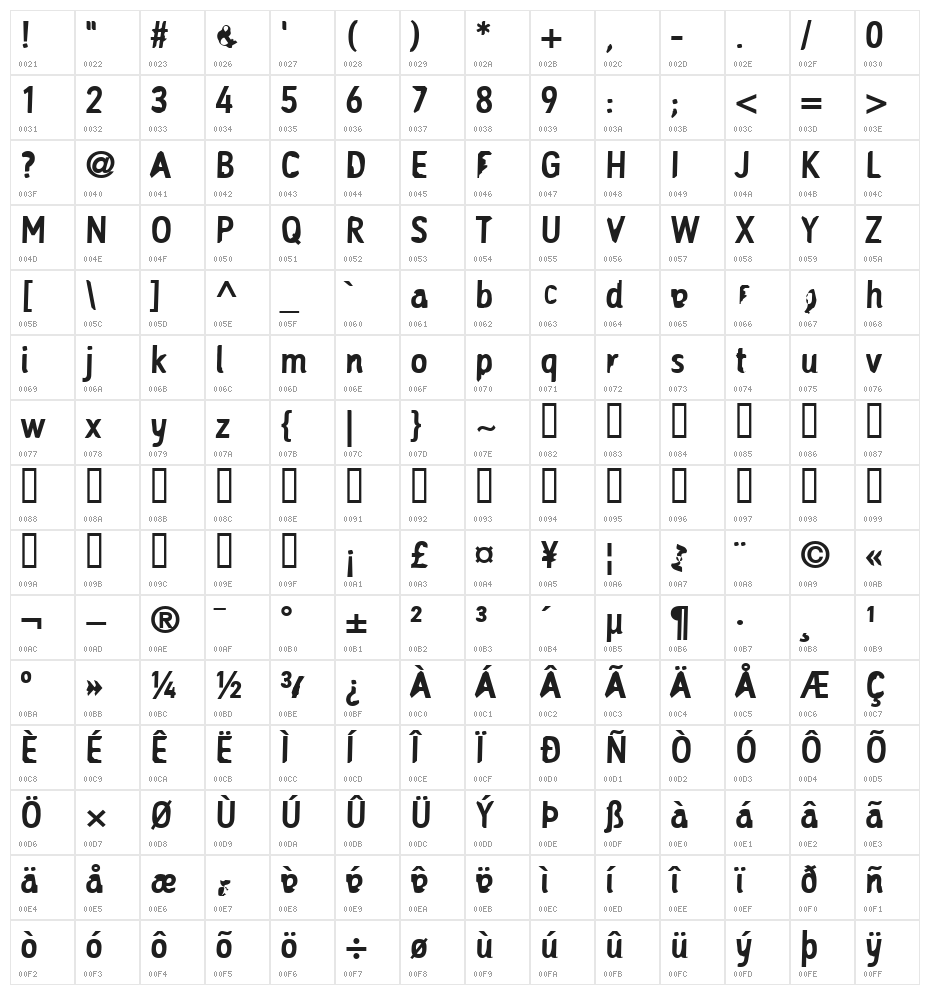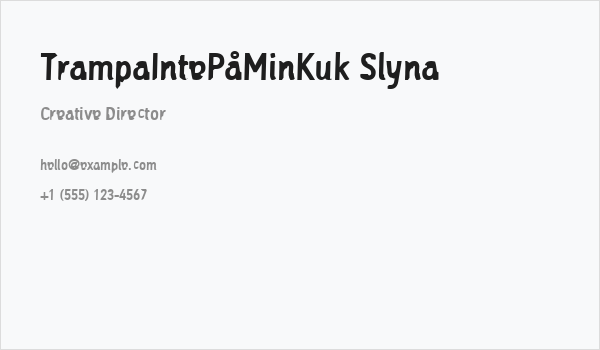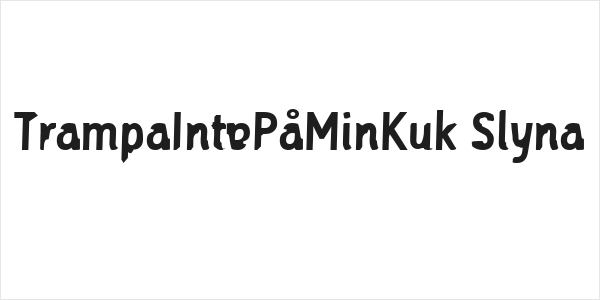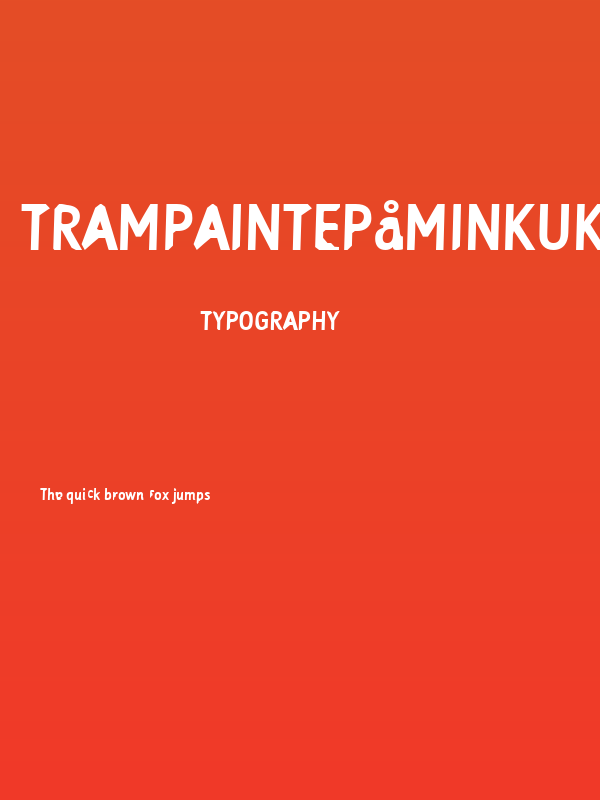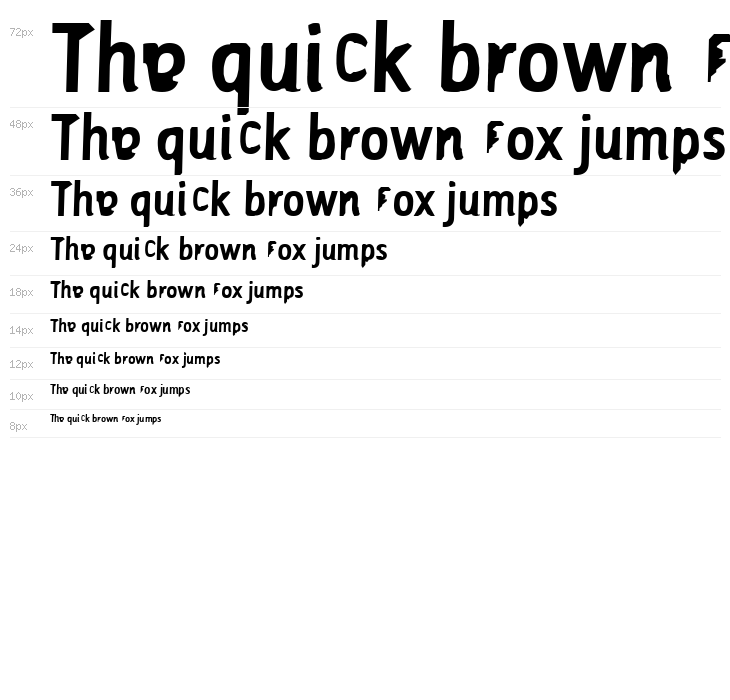
TrampaIntePåMinKuk Slyna Font
TrampaIntePåMinKuk Slyna Description
This font features a bold and striking design with a unique, distressed texture that gives it a rugged and edgy appearance. The uppercase and lowercase letters maintain a consistent height, with sharp angles and clean lines that contribute to its modern aesthetic. The numbers and special characters follow the same style, ensuring uniformity across all glyphs. The font's boldness and distinctive style make it stand out, ideal for projects that require a strong visual impact.
| Proposed Projects | Ideal for branding, posters, album covers, and any project needing a bold, impactful look. |